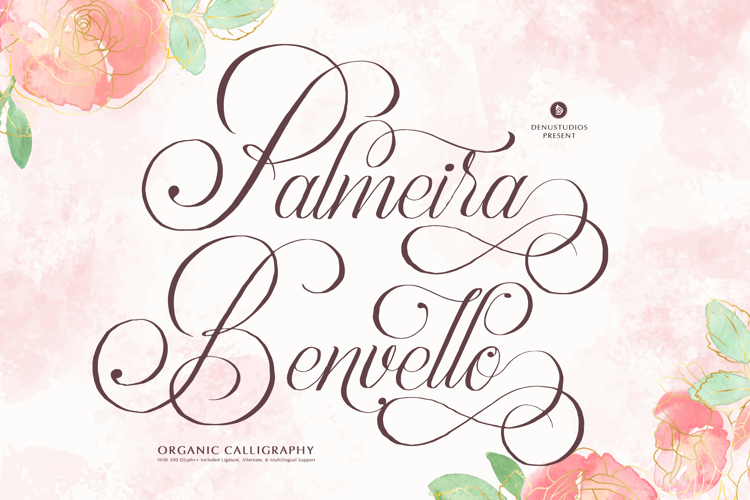
Palmeira Benvello Font
Palmeira Benvello | Organic Calligraphy product packaging, mugs, quotes, posters, shopping bags, t-shirts, book covers, name card, invitation cards, greeting cards, label, photography, watermark, special events, and all your other lovely projects that need a Organic Calligraphy taste.